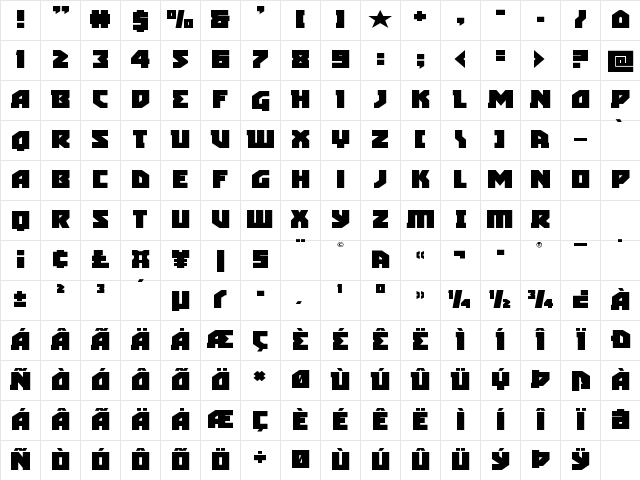
Arctic Guardian Expanded Expanded
Style: Expanded
Design Context for Arctic Guardian Expanded
Arctic Guardian Expanded is a composed and adaptable typeface that performs quietly and consistently across a wide range of design contexts.